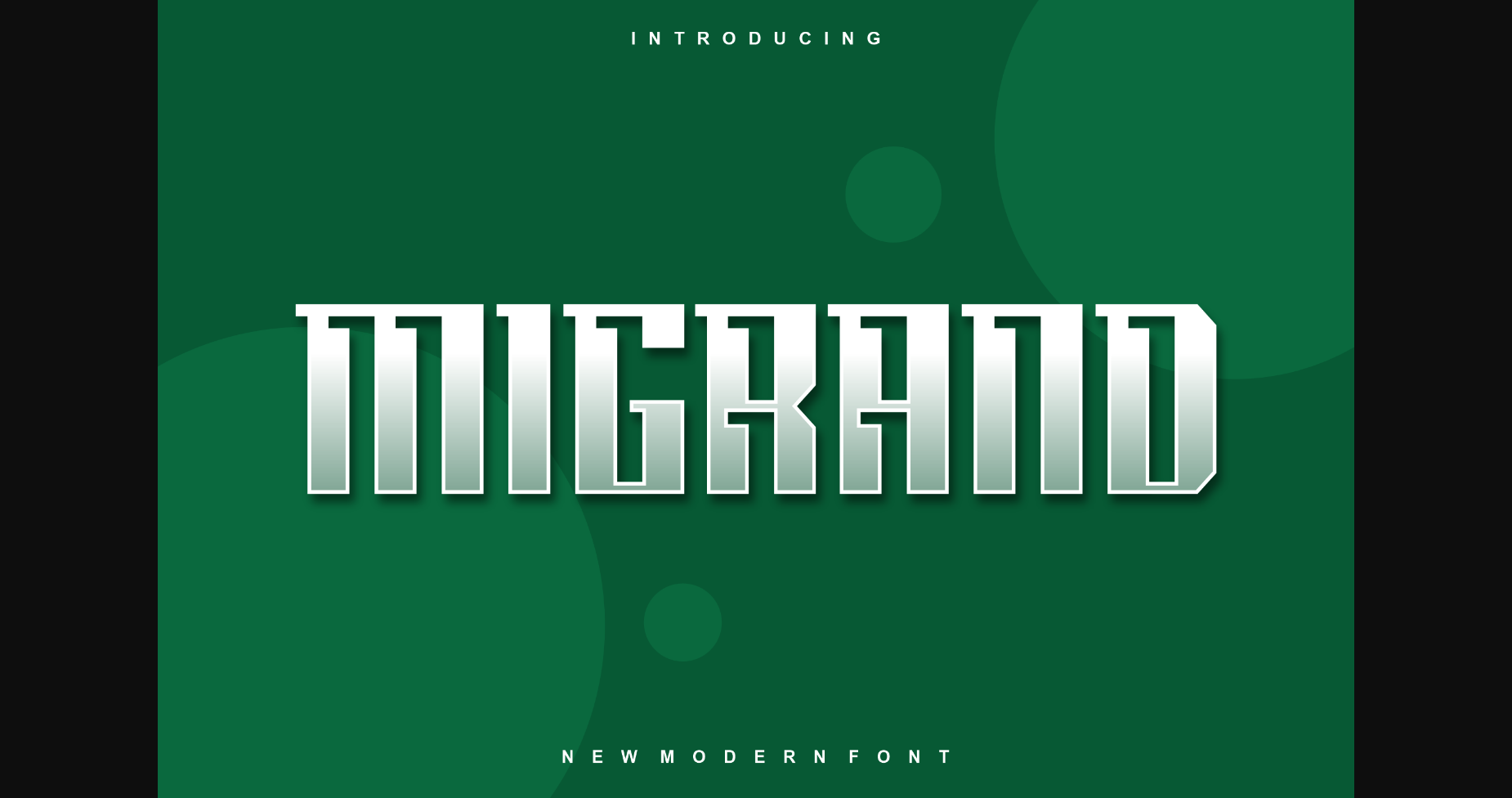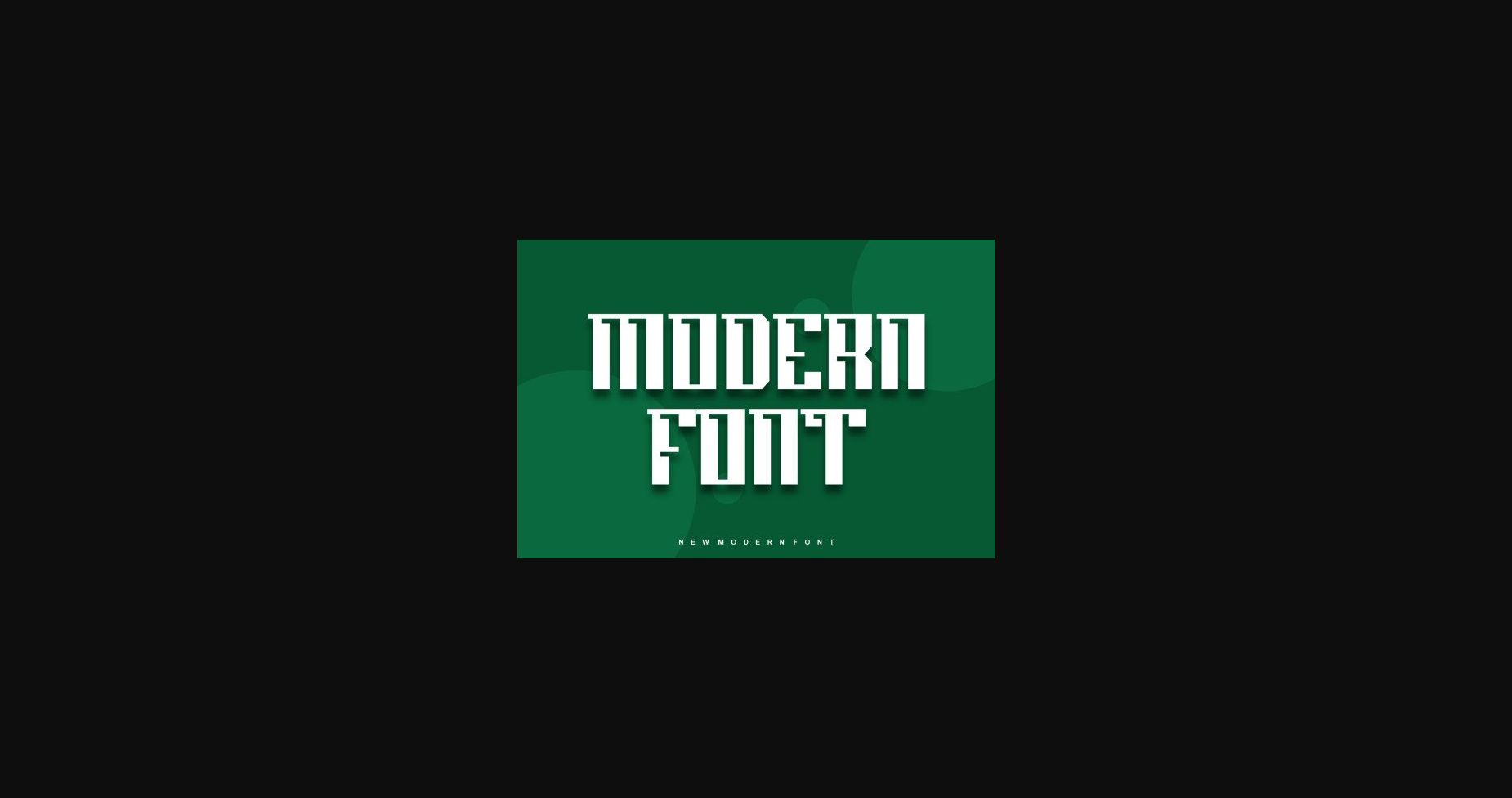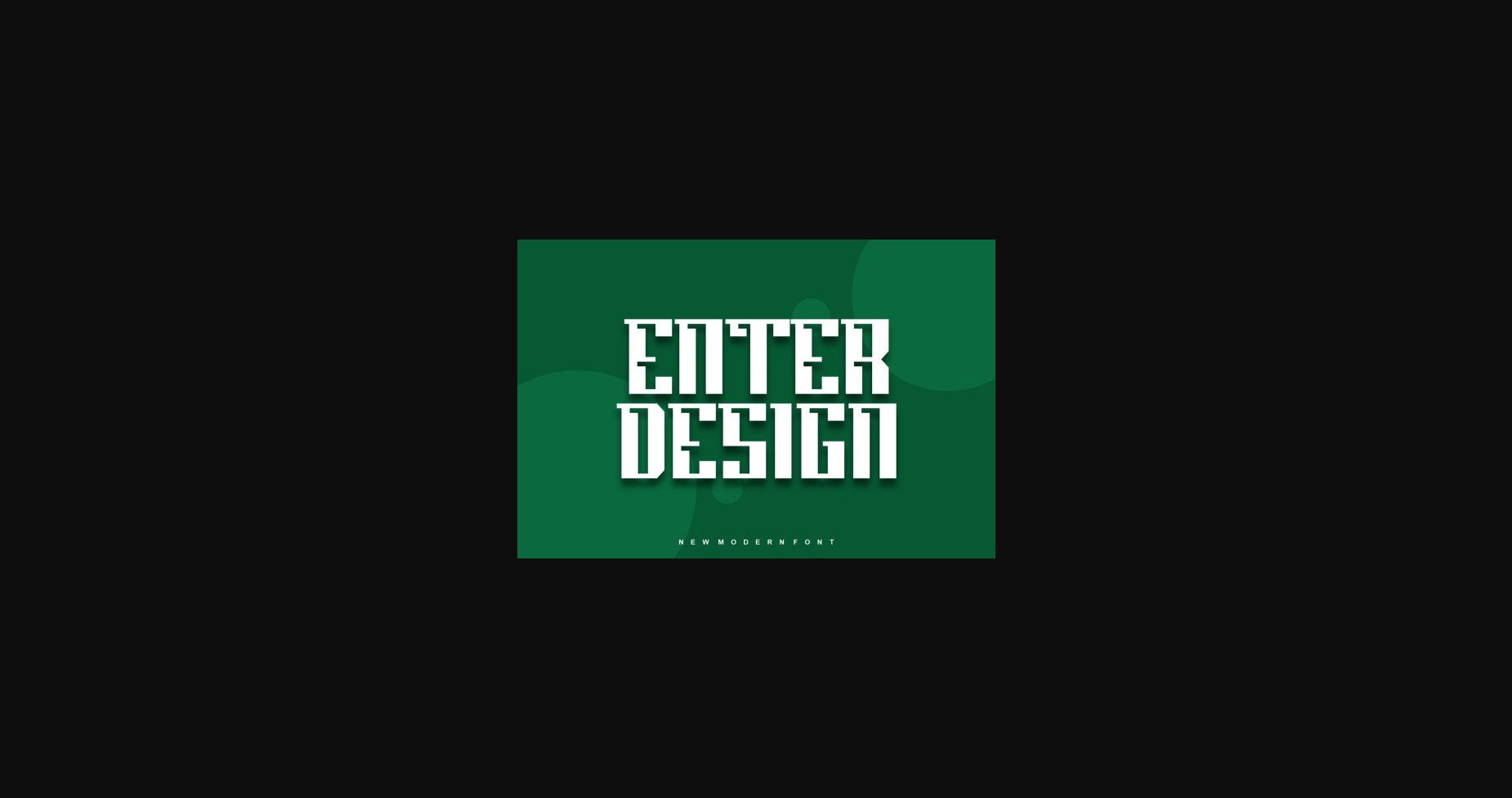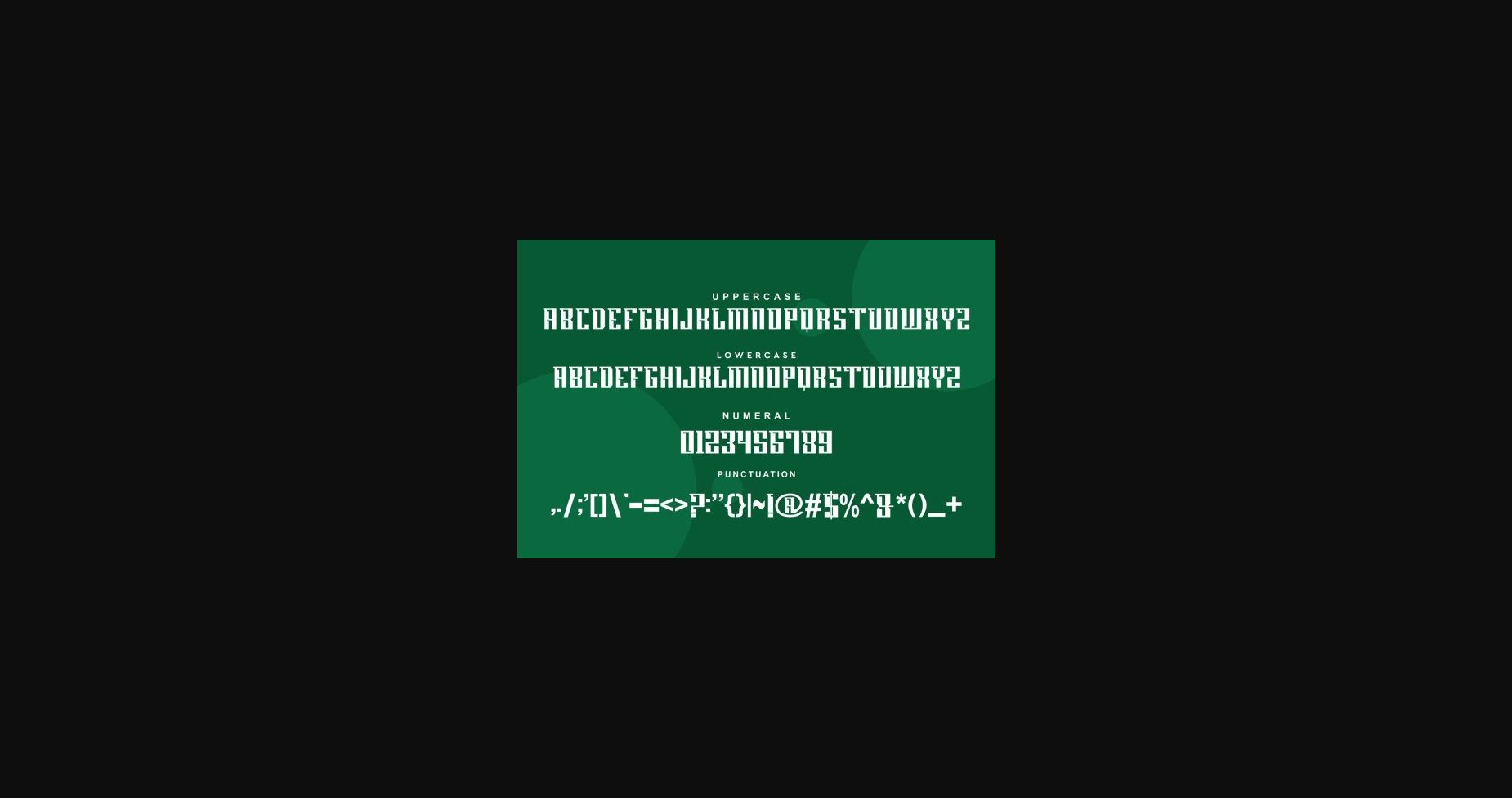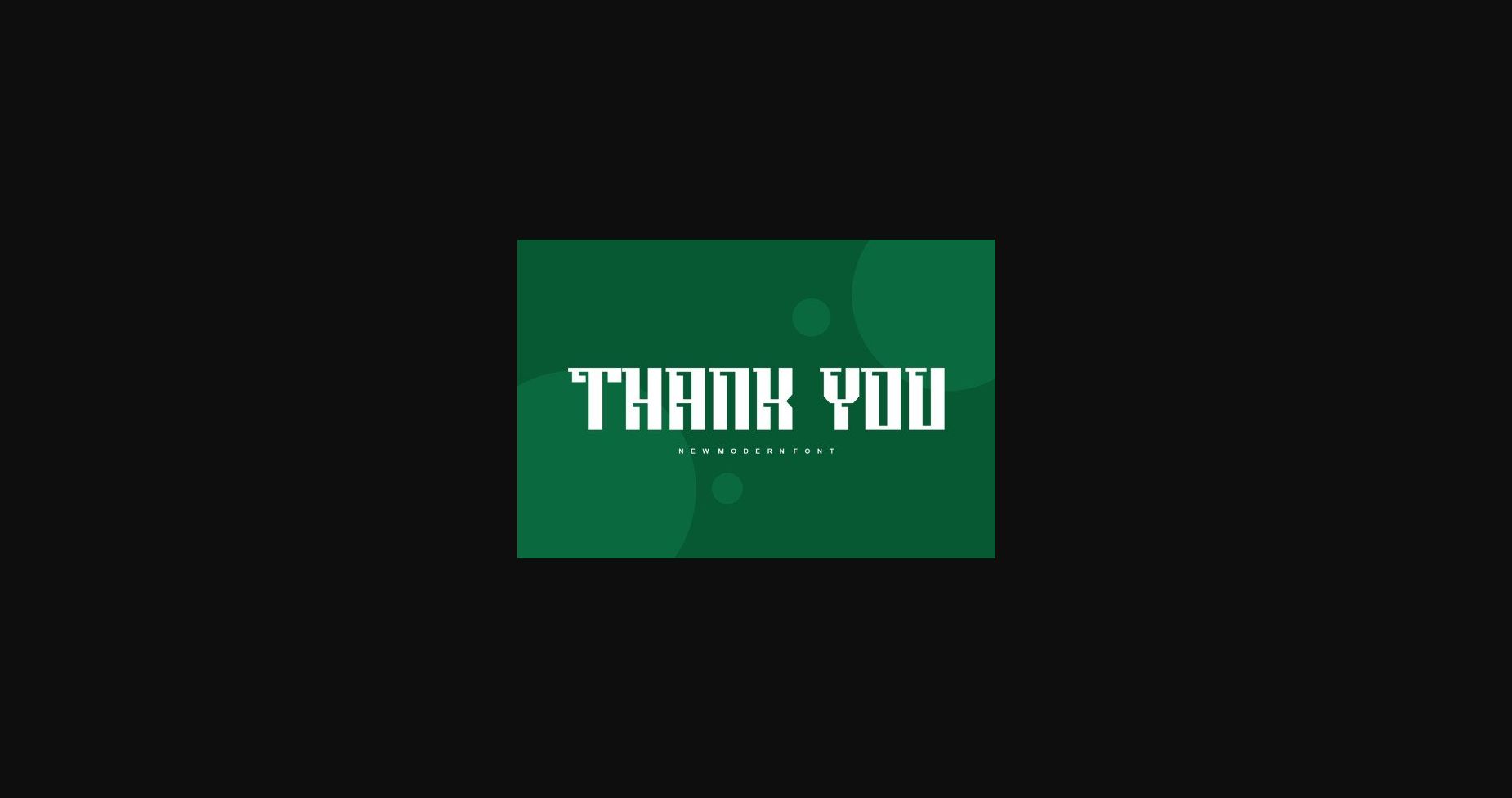
HomeSans Serif FontsMigrand Font Sans Serif Fonts Migrand Font FacebookXPinterestWhatsApp 1 of 7 ... Migrand Font Poster 2... Migrand Font Poster 3... Migrand Font Poster 4... Migrand Font Poster 5... Migrand Font Poster 6... Migrand Font Poster 7... About Migrand Font Migrand is a cool and modern display font. Add this beautiful display font to each of your creative ideas and notice how it makes them stand out! DOWNLOAD NOW People also explored Florila Frame Font Balestic Font Sabastian Font Alzelvin Font Quiana Tippy Tappy Type Font Team Purple Bella Canvas 3001 Tee Mockup Manillatte Font Samantha Font 391 0 TagsMigrandMigrand Font Previous articleMudclaw FontNext articleStarmagic Font LEAVE A REPLY Cancel reply Comment: Please enter your comment! Name:* Please enter your name here Email:* You have entered an incorrect email address! Please enter your email address here Website: Save my name, email, and website in this browser for the next time I comment. Personal Use Free Electroharmonix Personal Use Free Read more about this font Persephone Free Personal Use Free Read more about this font Lovely Girl Personal Use Free Read more about this font Fibon Personal Use Free Read more about this font BLOG How to Install and Use Fonts on Windows, macOS, and Web Projects How to Install and Use Fonts on Windows, macOS, and Web Projects Fonts are a crucial part of design and branding. Whether you’re designing a... To increase your work productivity, choose the most readable fonts. How to Cut Any Font on Cricut: Convert a Font to SVG (Free) Using Fonts in Digital Marketing: Tips to Strengthen Your Brand Identity